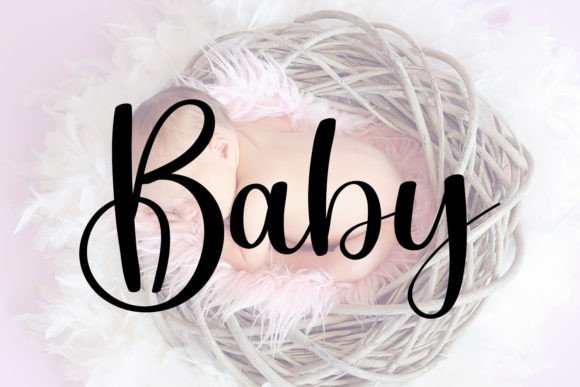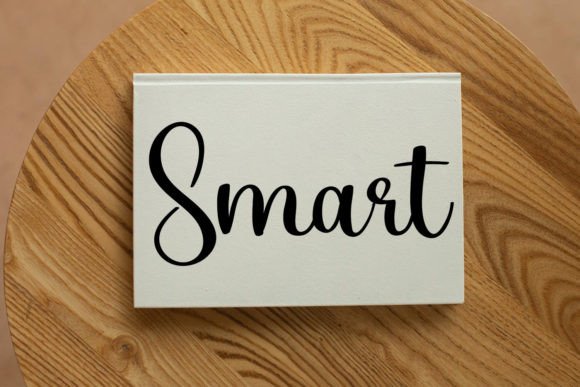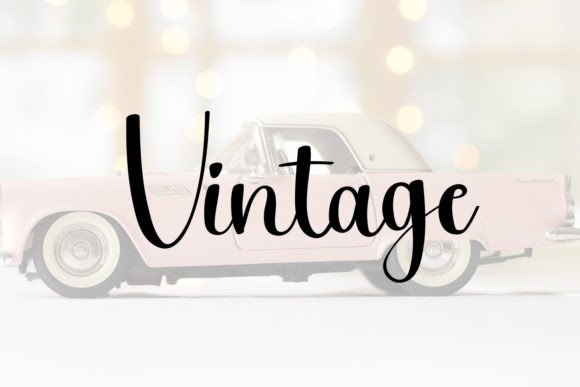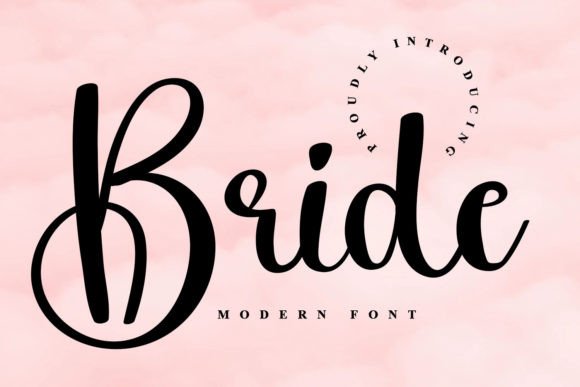
The Bride Font: A Timeless, Elegant Choice for Your Designs
I’ll never forget the time I was working on a wedding invitation project, and my client asked me to create a custom font that exuded elegance and sophistication. I spent hours scouring the internet, trying out different fonts, but none seemed quite right. That was until I stumbled upon the Bride font. With its flowing, handwritten style and elegant touch, it was love at first sight! In this article, I’ll share my experience with the Bride font, its features, and how to make the most of it in your designs.
An Honest Review of the Bride Font
• ✨ Elegant and sophisticated: The Bride font is perfect for projects that require a touch of luxury and refinement.
• ✅ Highly legible: Despite its flowing style, the font is incredibly easy to read, making it suitable for both headings and body text.
• 💫 Versatile: The font can be used for a wide range of projects, from wedding invitations to branding and packaging.
• 🎨 Highly customizable: With its OpenType features and glyphs, you can experiment with different styles and variations to make the font your own.
While the Bride font is an excellent choice for many projects, there are a few things to keep in mind:
• ⚠️ Limited use for body text: While the font is legible, it’s best suited for headings and titles. For longer blocks of text, a more traditional font might be a better choice.
• 🤔 Not ideal for small sizes: The font’s elegance and flow can be lost at very small sizes. It’s best used at larger sizes, such as 24px or above.
The Story Behind the Bride Font
The Bride font was designed by a talented type designer who wanted to create a font that captured the elegance and sophistication of a wedding day. Inspired by traditional calligraphy and handwritten scripts, the font was crafted to be both beautiful and functional. With its flowing style and elegant touch, it’s no wonder the Bride font has become a popular choice for designers and crafters alike.
Q: What is the Bride font best suited for?
A: The Bride font is best suited for projects that require an elegant and sophisticated touch, such as wedding invitations, branding, and packaging.
Q: Is the Bride font easy to read?
A: Yes, the Bride font is highly legible, making it suitable for both headings and body text. However, it’s best used at larger sizes, such as 24px or above.